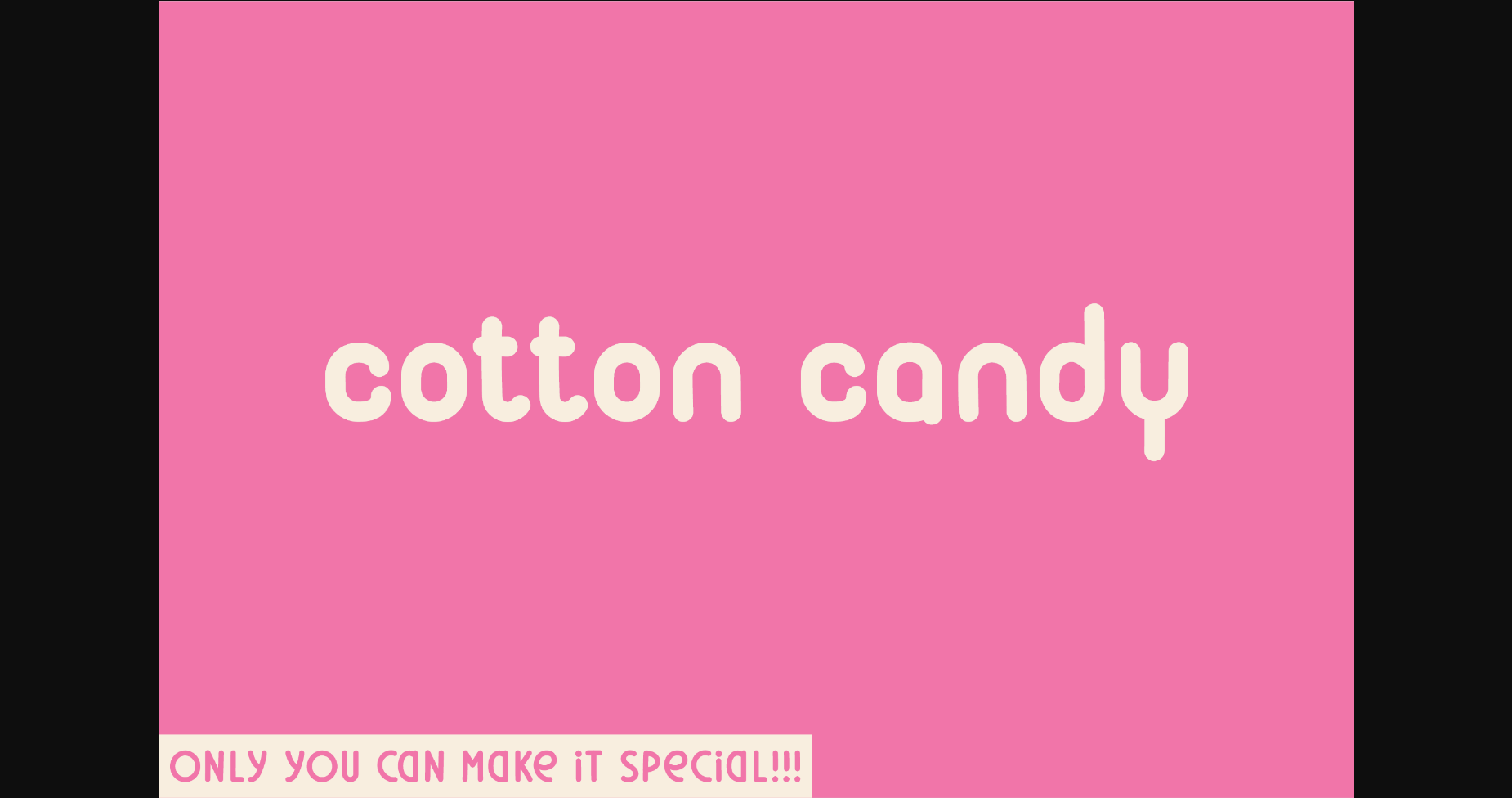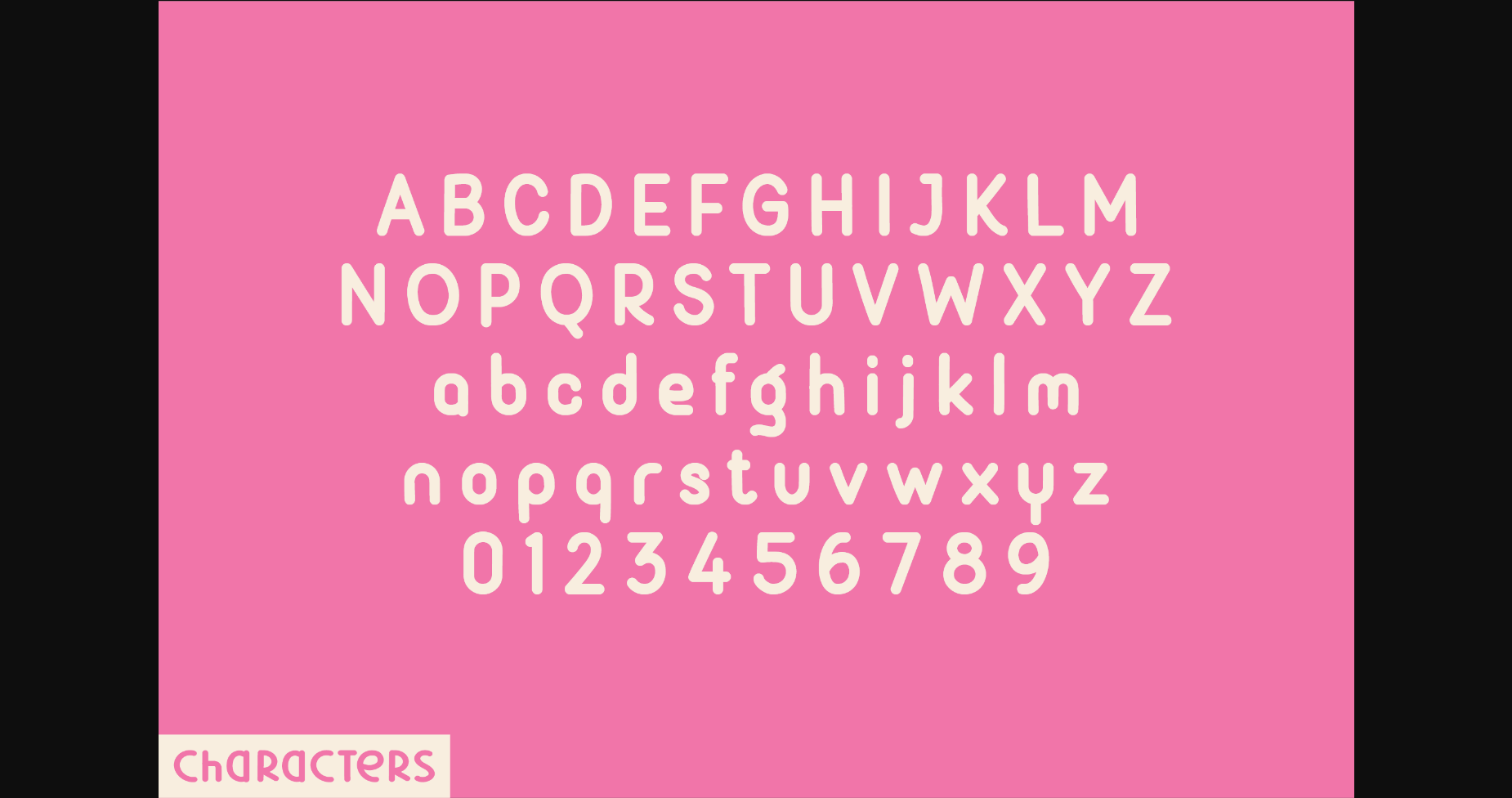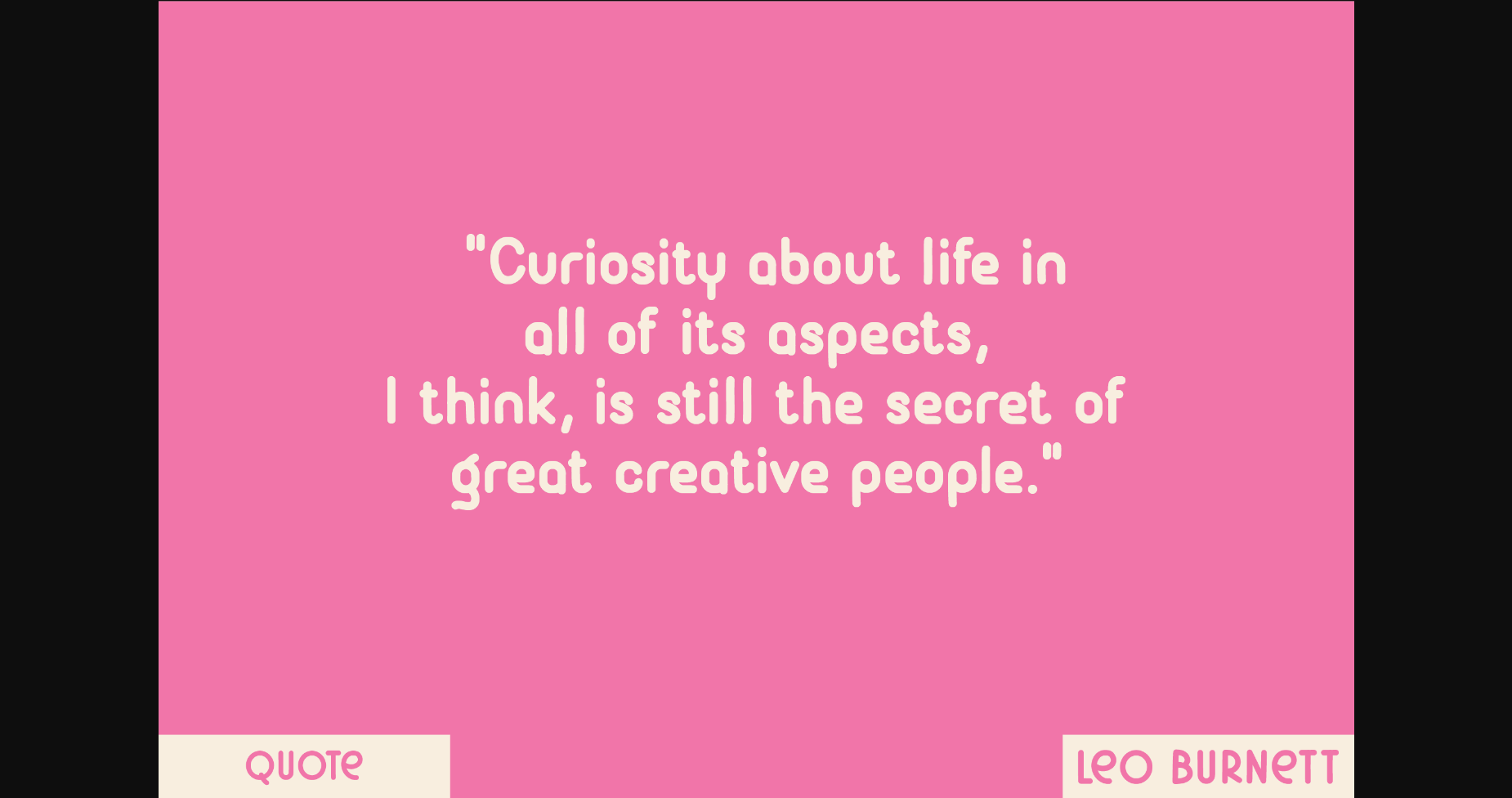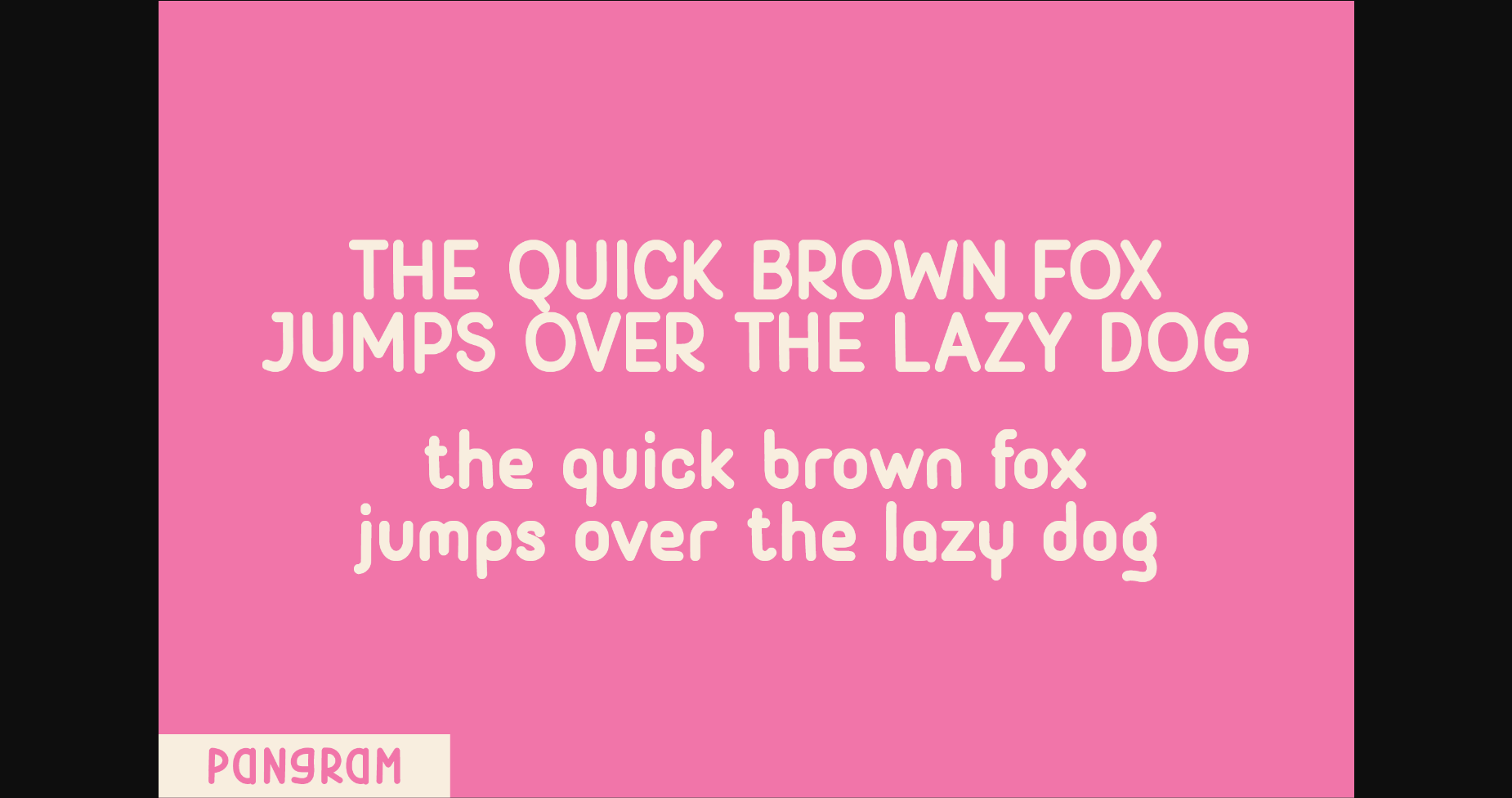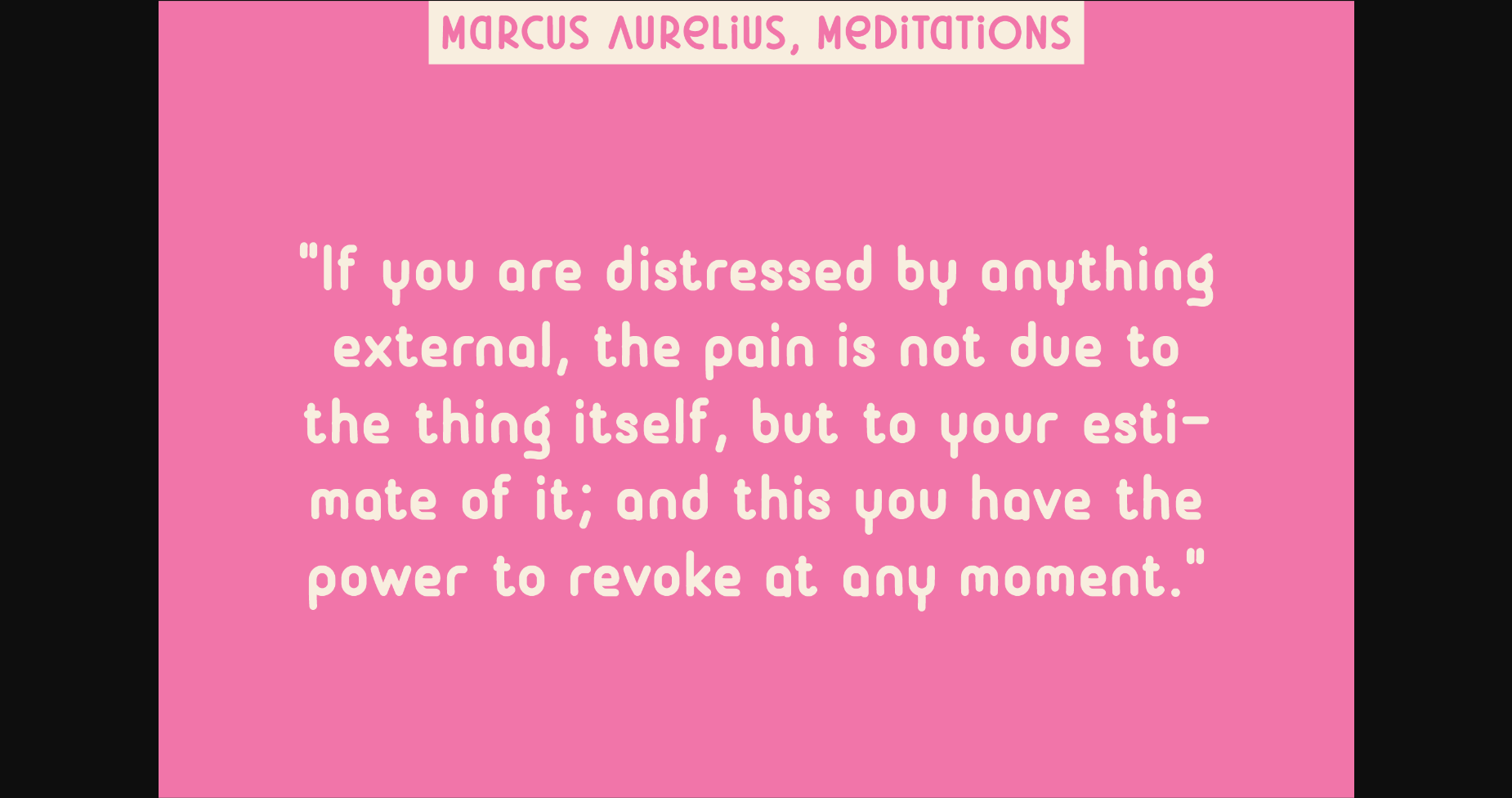
HomeSans Serif FontsCotton Candy Font Sans Serif Fonts Cotton Candy Font FacebookXPinterestWhatsApp 1 of 7 ... Cotton Candy Font Poster 3... Cotton Candy Font Poster 4... Cotton Candy Font Poster 5... Cotton Candy Font Poster 6... Cotton Candy Font Poster 7... About Cotton Candy Font Cotton Candy is a bold and unique sans serif font, perfect for quotes, notes, tees, logos, social media and any design that requires a classic touch. DOWNLOAD NOW People also explored Simple Master Font Fallestine Font Krobold Font Hafizah Font Crazy Jazzy Font Highestia Font Monresan Font Biscuits Font Family of Beautiful Font 278 0 TagsCotton Candy Font Previous articlePuffy Cloud FontNext articleLittle Lamb Font LEAVE A REPLY Cancel reply Comment: Please enter your comment! Name:* Please enter your name here Email:* You have entered an incorrect email address! Please enter your email address here Website: Save my name, email, and website in this browser for the next time I comment. Personal Use Free Bonhomie Personal Use Free Read more about this font Hommy You Personal Use Free Read more about this font Single Sleeve Personal Use Free Read more about this font Bashira Personal Use Free Read more about this font BLOG Fonts That Capture the Spirit of New York City New York City is more than just a place—it’s an experience, a rhythm, a visual language... Top 7 Google Fonts Alternatives for Faster and Privacy-Friendly Web Design (2025) Where to Buy American Fonts Online in 2024 To increase your work productivity, choose the most readable fonts.